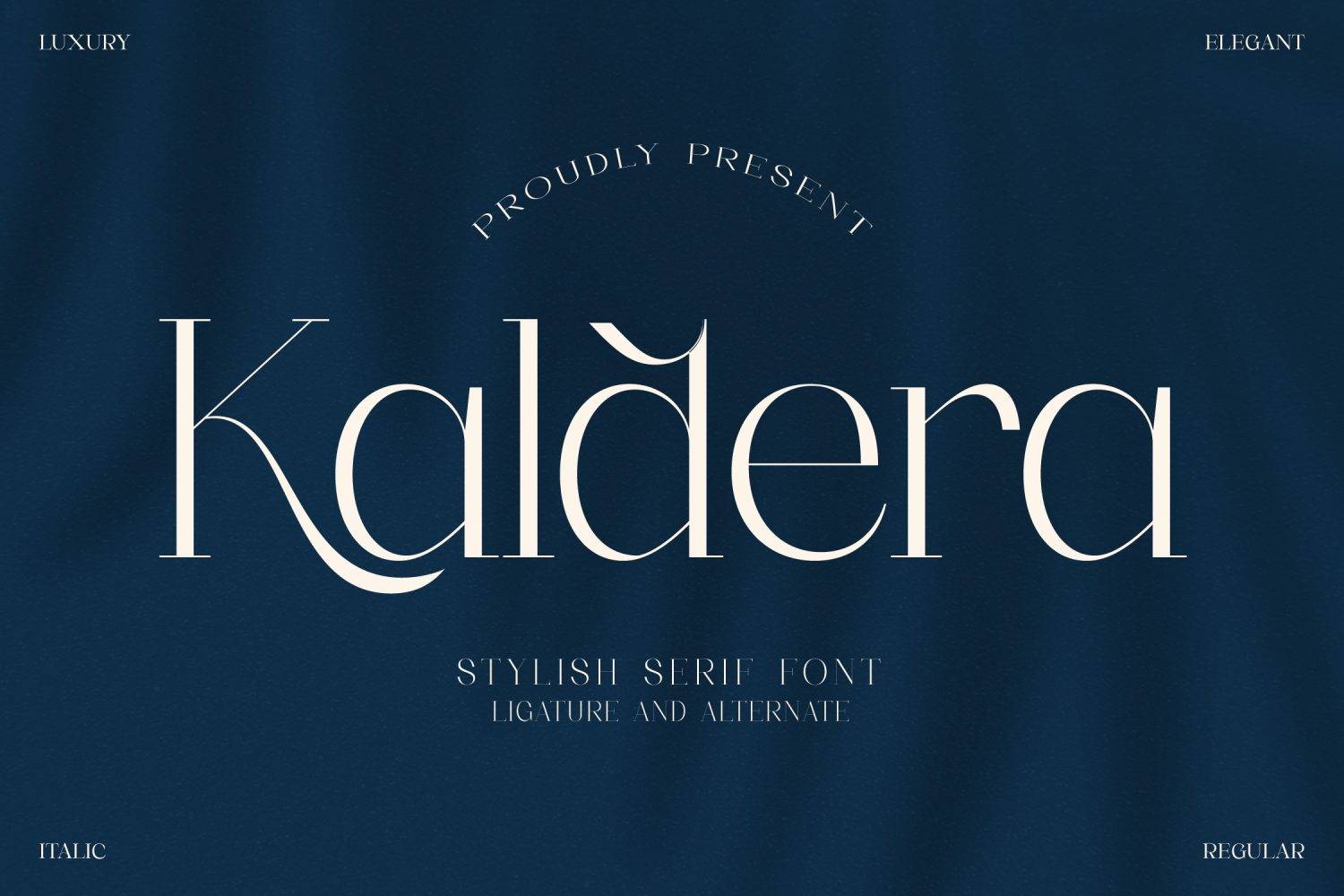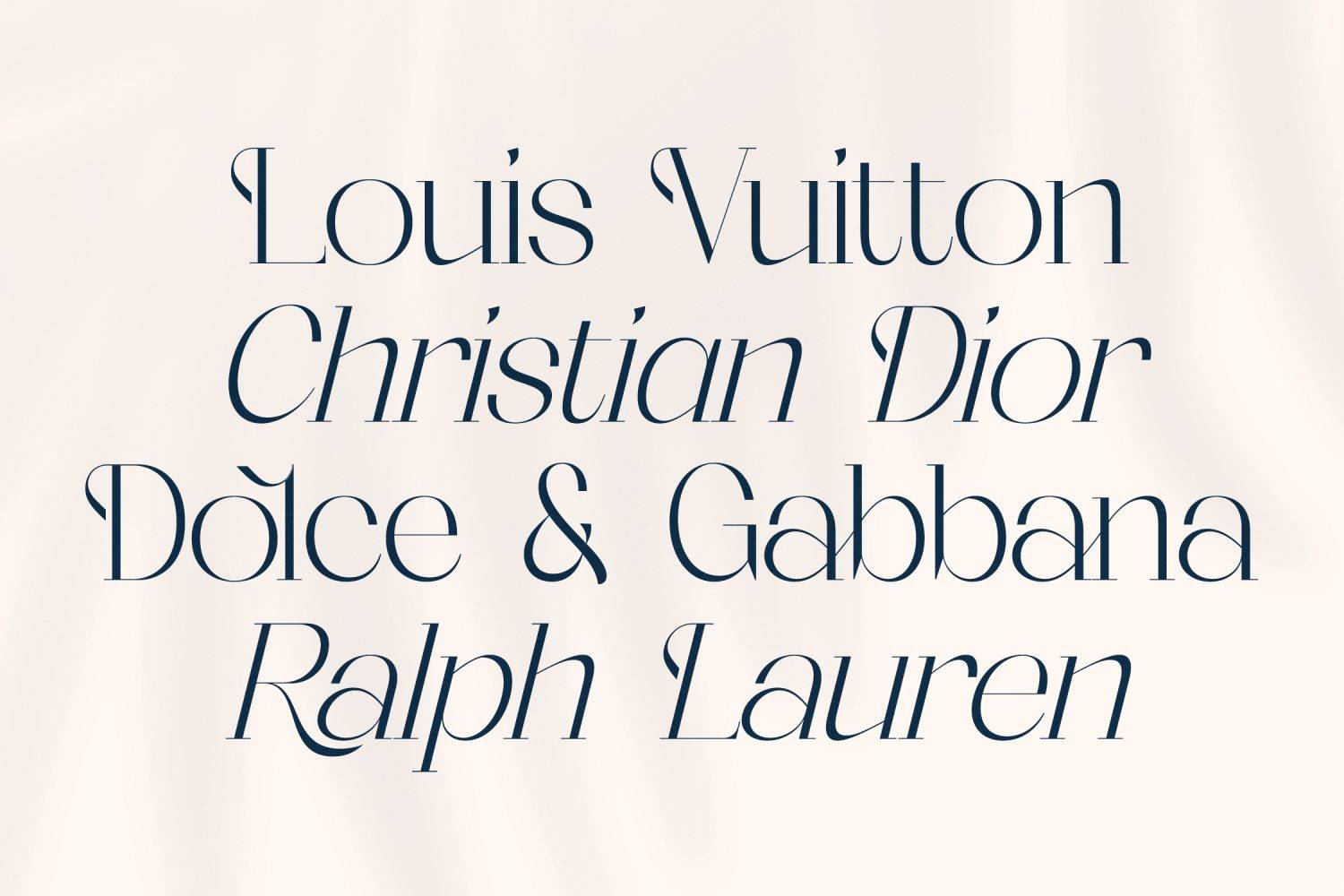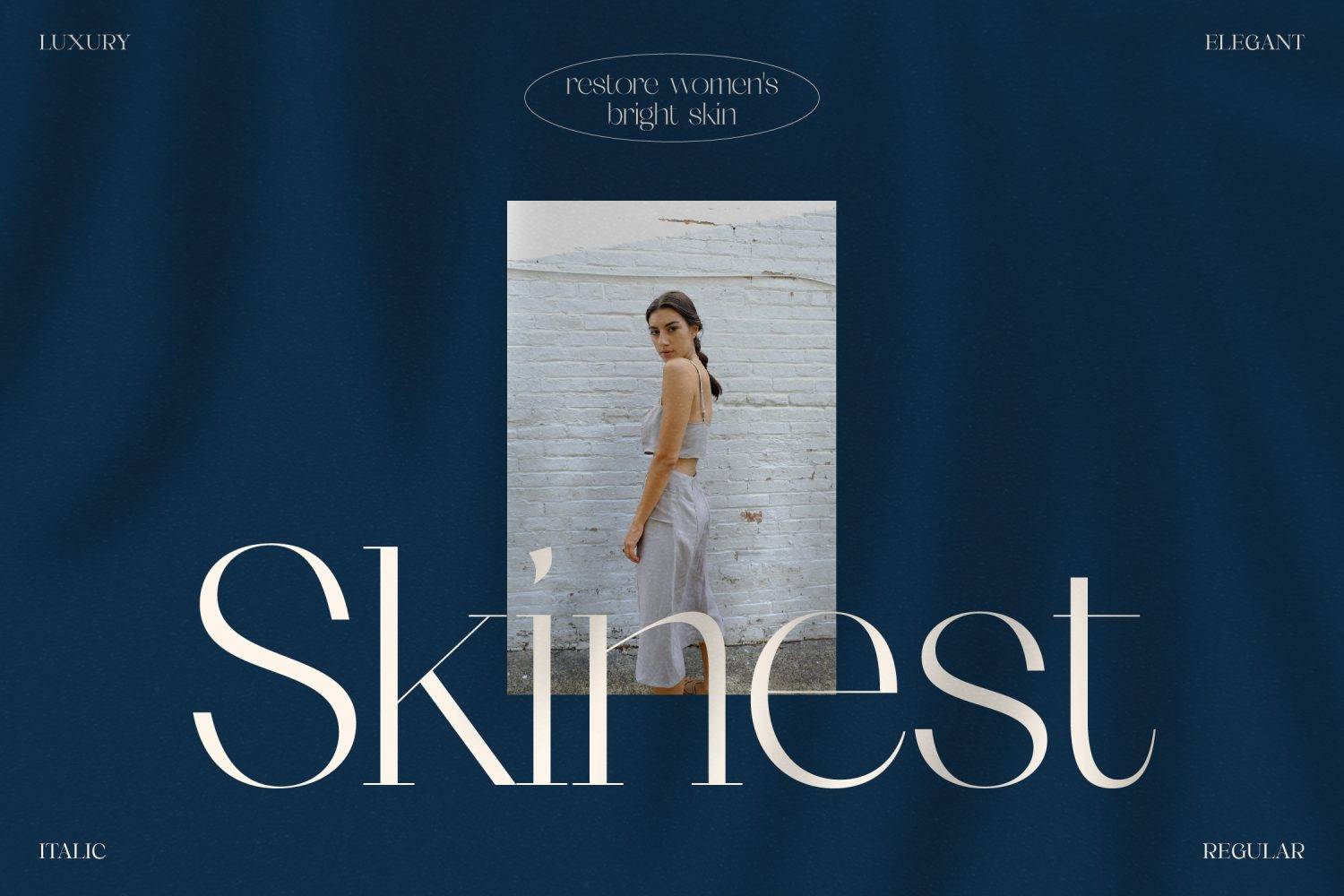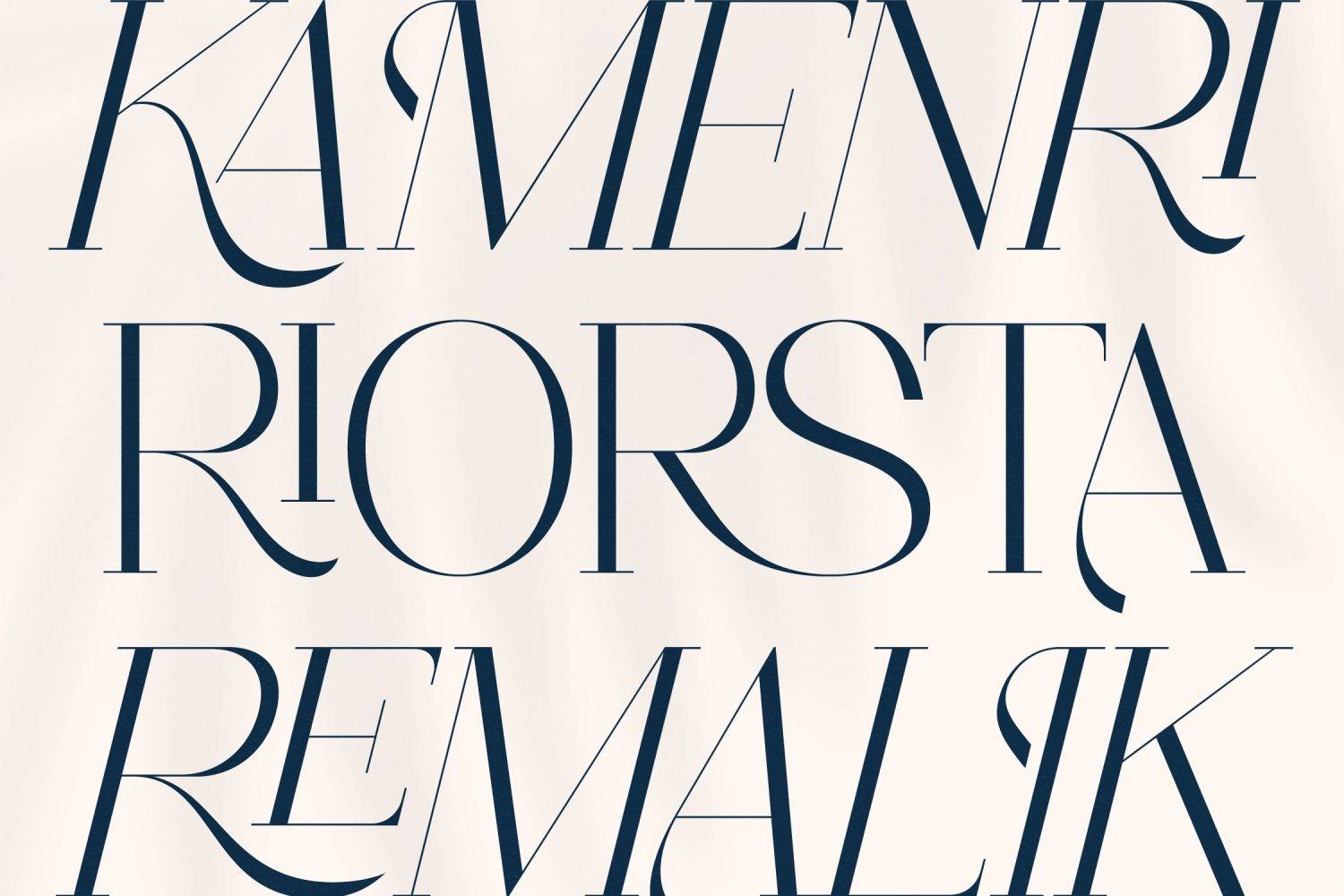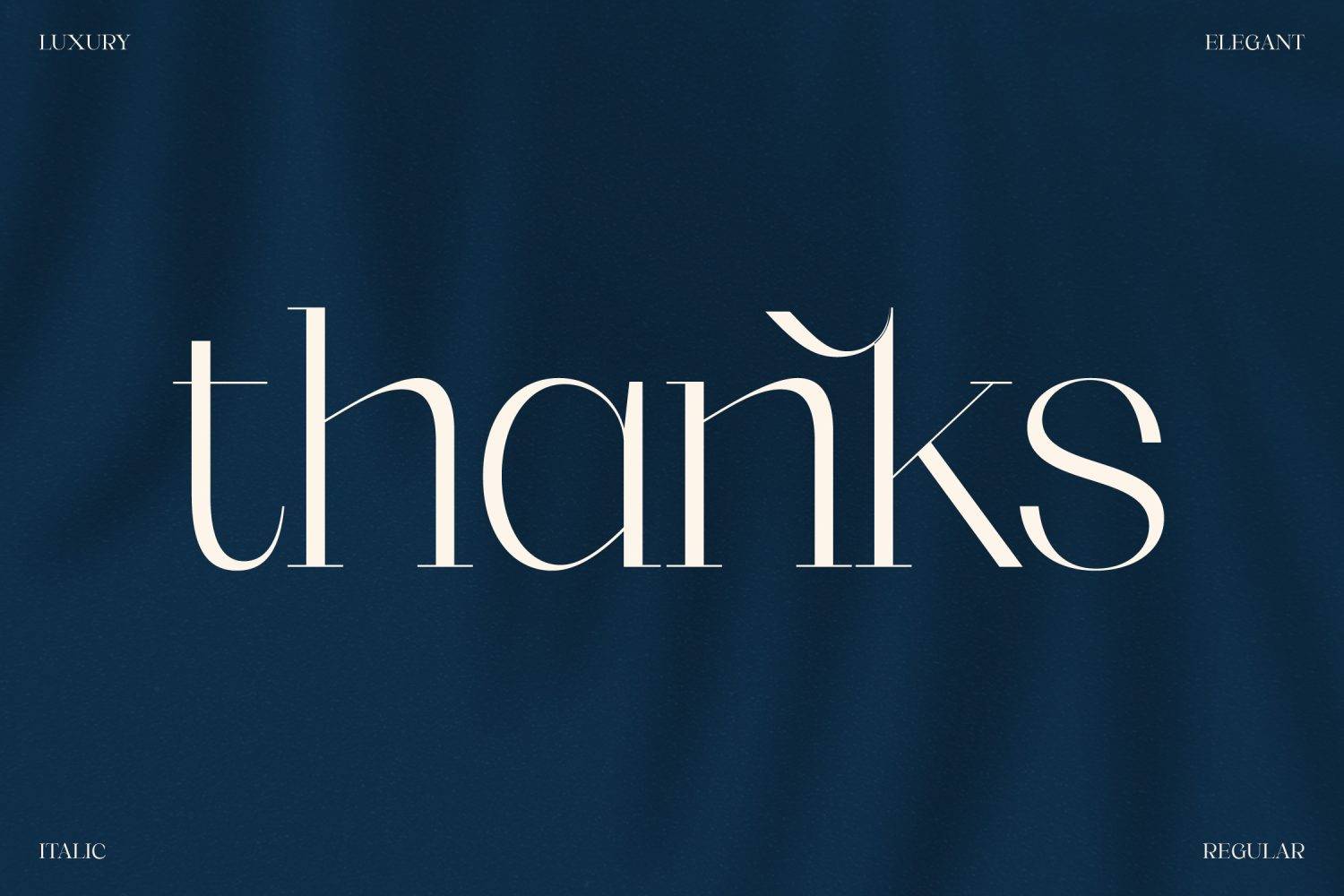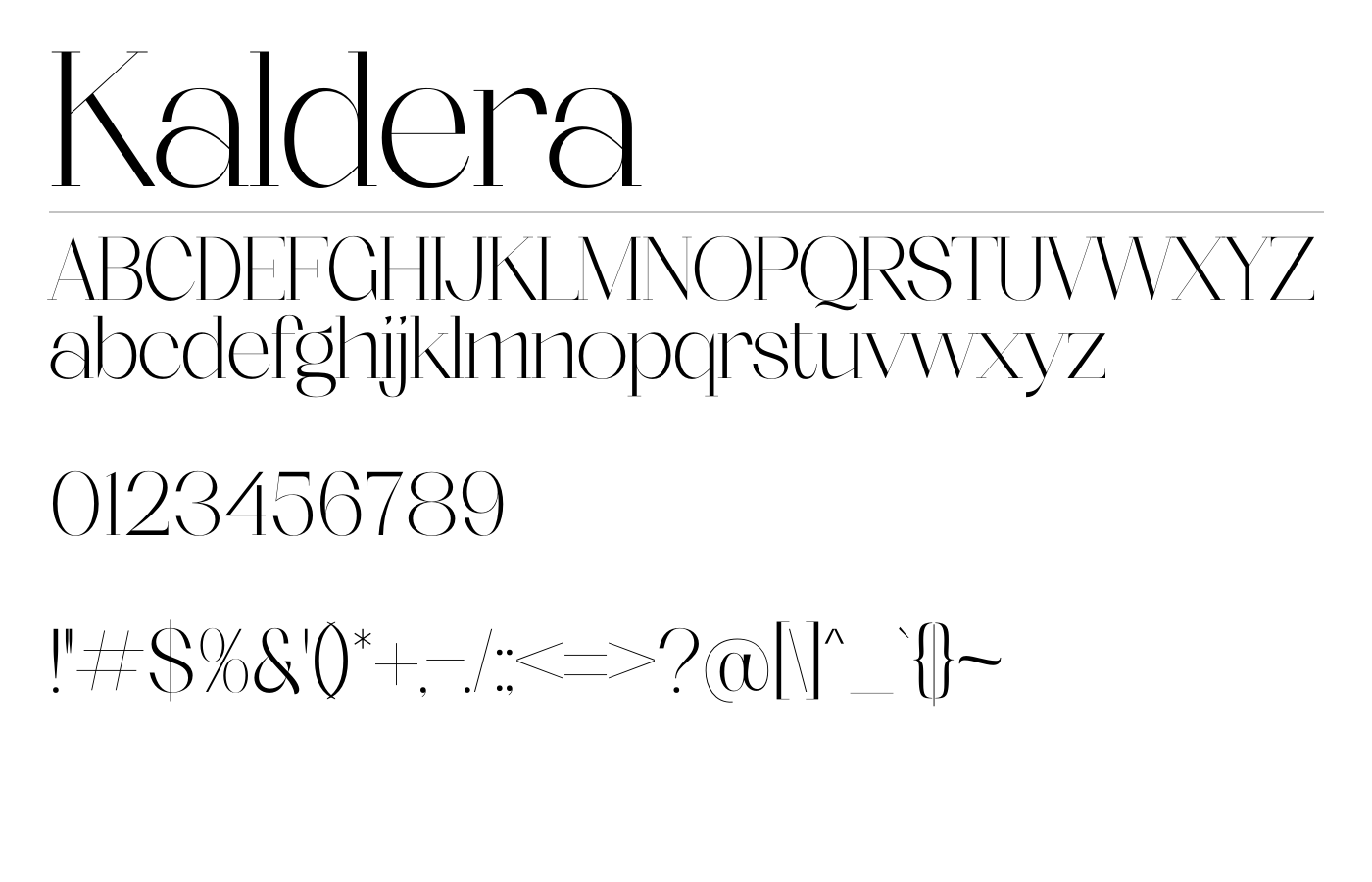
Kaldera is an elegant serif font characterized by its high contrast between thin and thick strokes, slender proportions, and delicate, refined serifs. Its graceful letterforms, including distinctive single-story lowercase letters and a stylish ampersand, convey a modern yet sophisticated feel, making it ideal for luxury branding, editorial headlines, and fashion-focused design projects. This font’s airy spacing and fine details give it a timeless, high-end appearance that works beautifully in settings where elegance and style are key.
Kaldera Font
About Kaldera Font